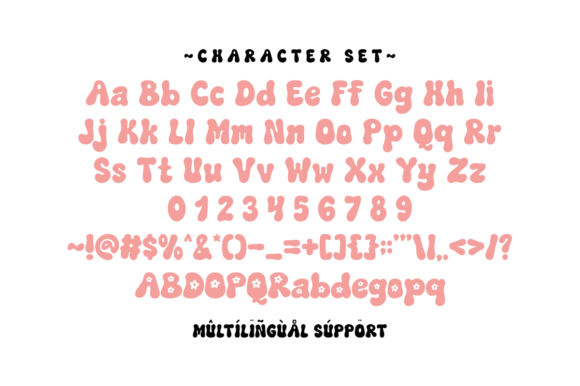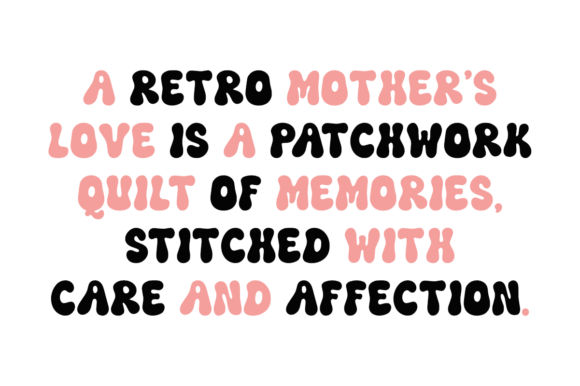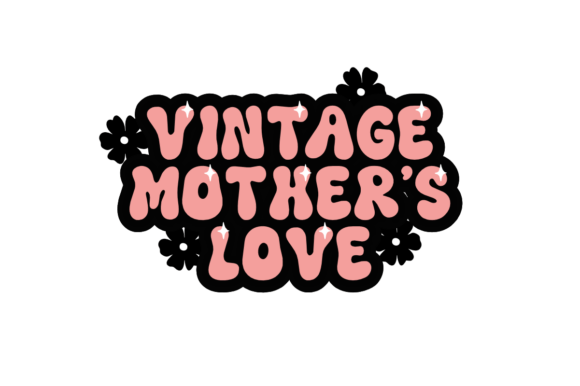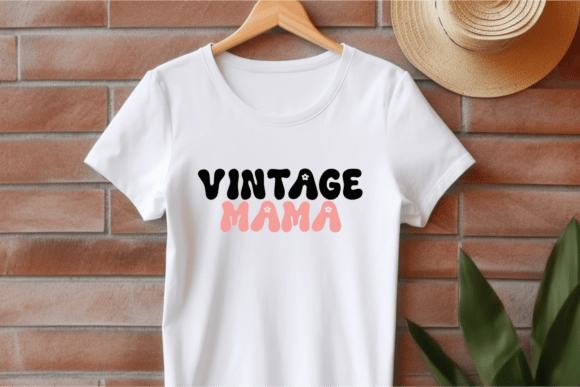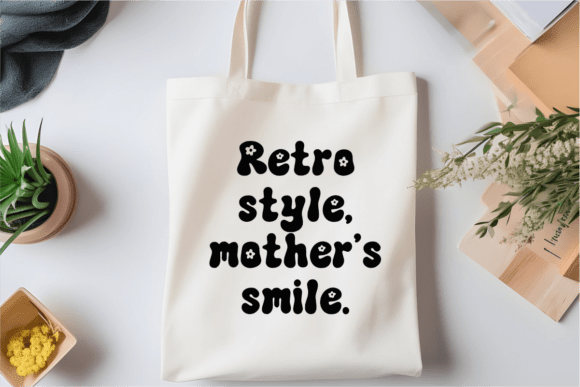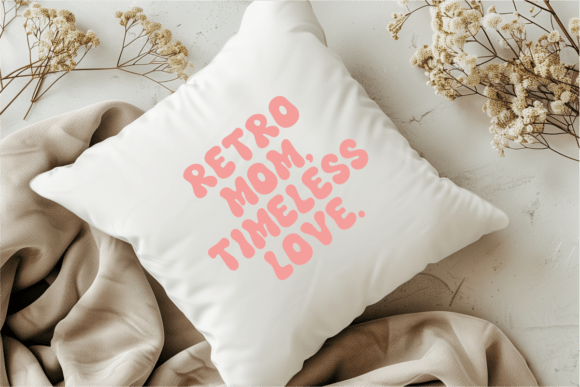
Introduction to Retro Mother Font
Retro Mother is a charming and groovy display font that beautifully blends retro aesthetics with a touch of modern sweetness.
Its rounded, slightly wavy letterforms evoke a nostalgic feel reminiscent of the 70s, while the delicate floral accents add a touch of contemporary cuteness and whimsy This font is perfect for adding a retro yet sweet vibe to a wide range of creative projects.